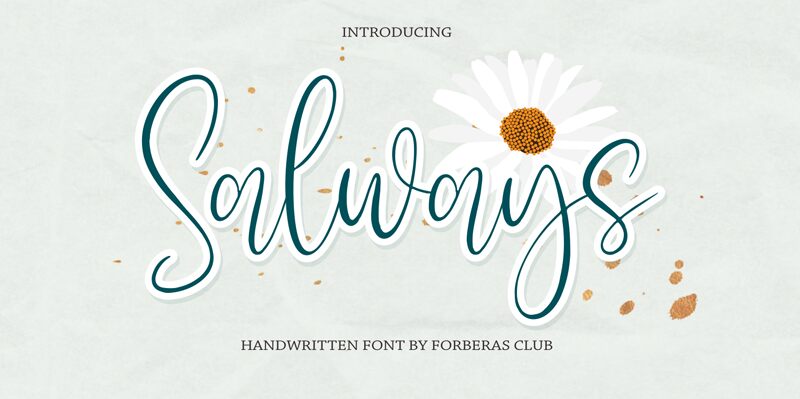
Salways, a delightful creation by Forberas Club, is a captivating handwritten font that exudes elegance and charm. Its light weight carries an air of sophistication, making it perfect for projects seeking a touch of refinement. Whether crafting wedding invitations or designing delicate logos for high-end brands, Salways lends an authentic human touch to any composition. With its fluid strokes and graceful curves, this font type is also well-suited for creating eye-catching blog headers or adding a personal flair to social media posts. Let your creativity soar with Salways and elevate your designs to new heights.